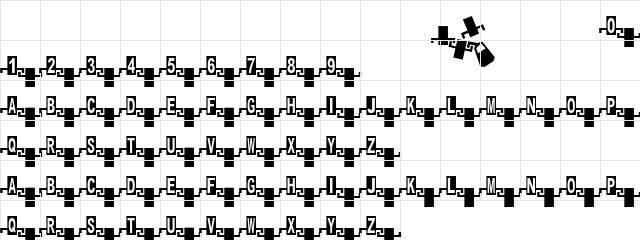
Loop Regular
Design Context for Loop Typeface
Loop is a composed and adaptable typeface that performs quietly and consistently across a wide range of design contexts.